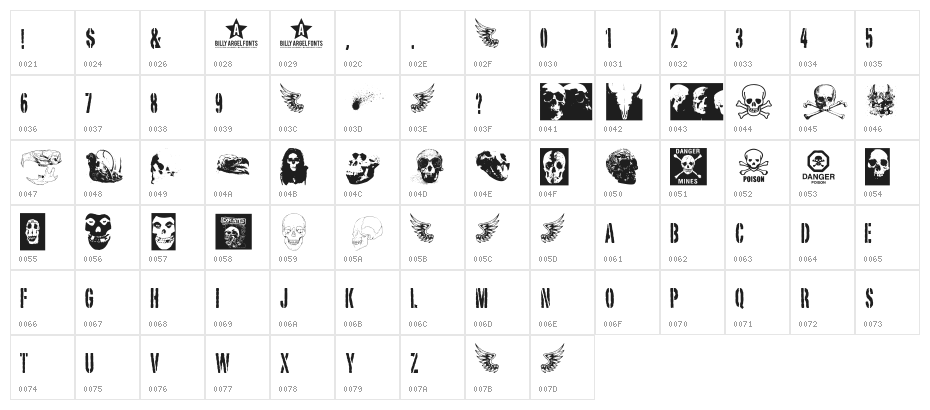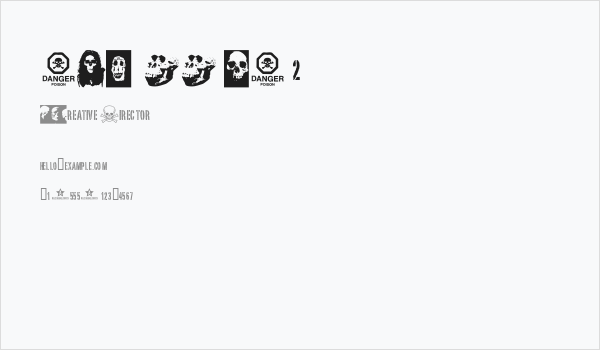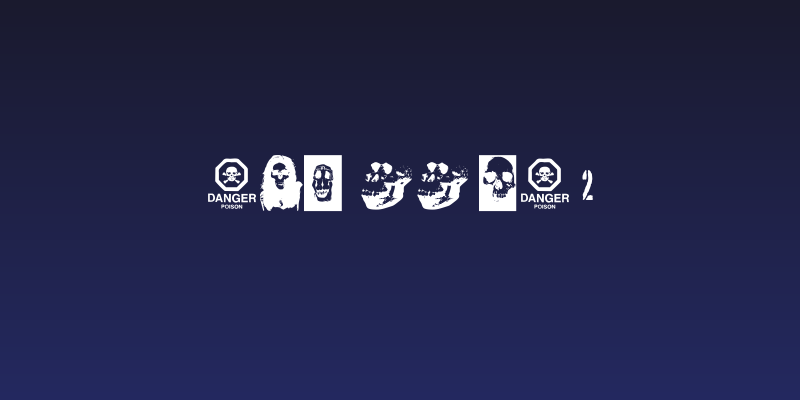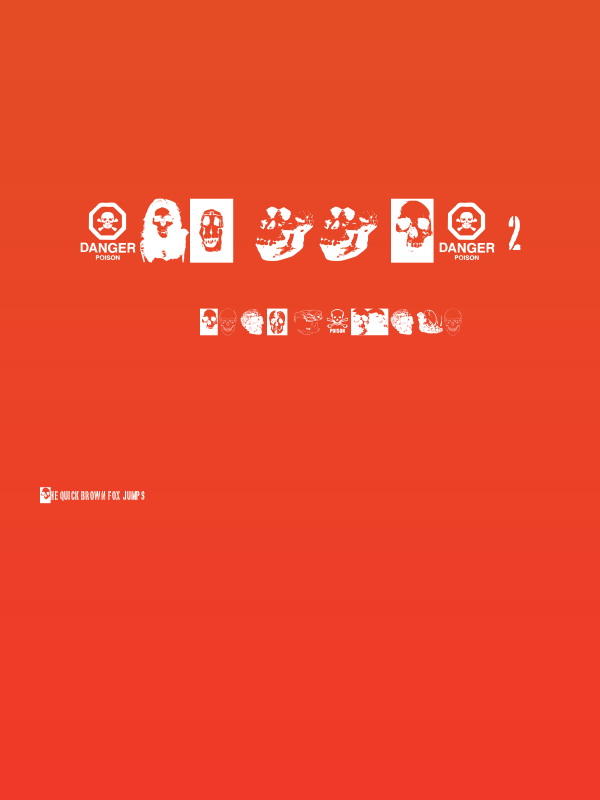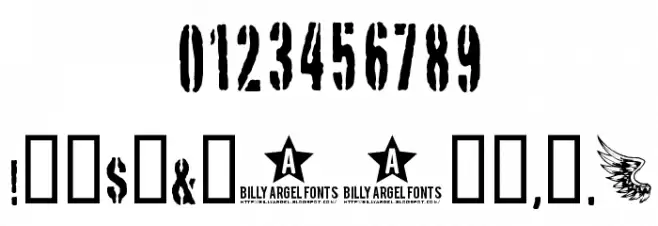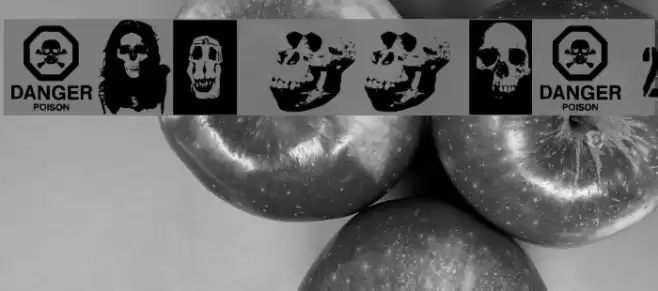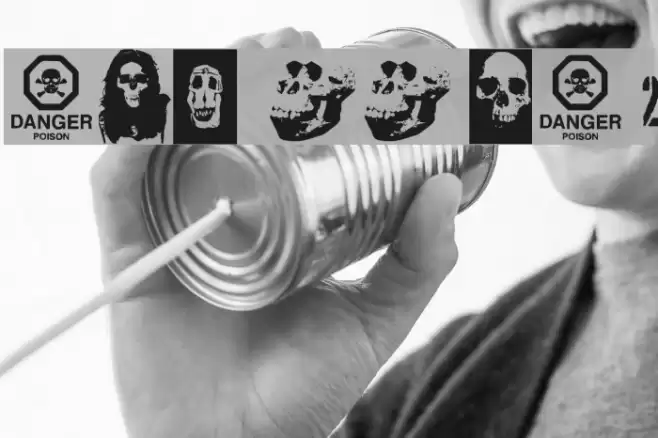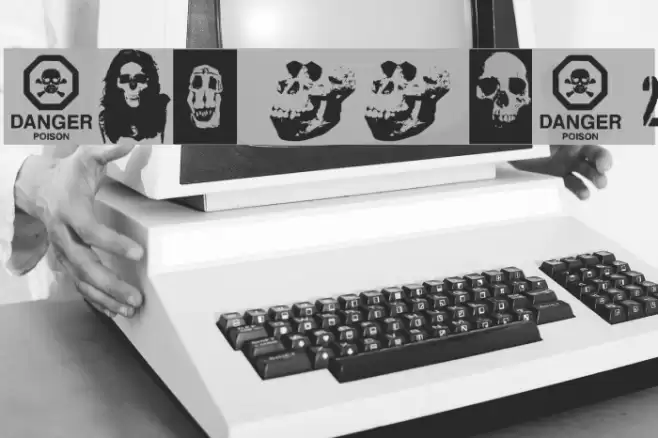
SKULL TS 2 Font
This font features a bold and rugged design with a distressed, grunge aesthetic. The uppercase letters are prominently displayed with a stencil-like appearance, giving them a rough and edgy feel. The numbers follow the same style, maintaining consistency throughout. This font is ideal for projects that require a strong, impactful look, such as posters, album covers, or any design that aims to convey a sense of rebellion or toughness. The inclusion of skull and danger symbols adds to its thematic versatility, making it suitable for horror or thriller genres.
| Overall Style | Grunge, Edgy, Distressed |
| Proposed Projects | Posters, album covers, horror-themed designs, rebellious or edgy branding. |